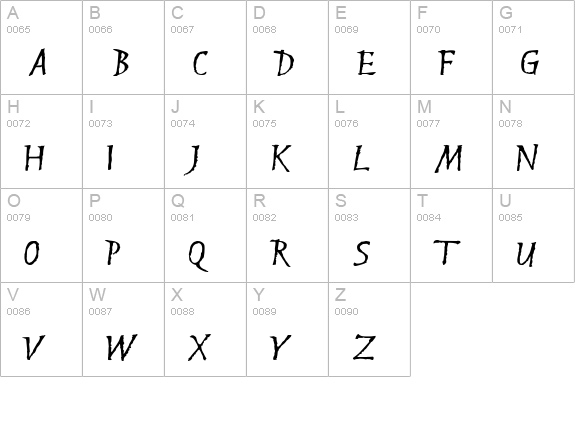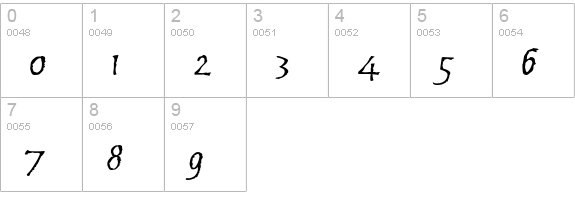
Brubeck AH font is a modern and stylish typeface that exudes sophistication and elegance. Its sleek lines and contemporary design make it a versatile choice for a wide range of design projects. With its clean and legible appearance, Brubeck AH font is perfect for both print and digital applications. What sets Brubeck AH font apart is that it is available for free download at FontsMarket.com. This means that you can easily access this high-quality font without any cost, making it a valuable addition to your font library. Whether you are creating branding materials, websites, or various other design projects, Brubeck AH font is sure to elevate your work with its unique charm and visual appeal. Don't miss out on this fantastic opportunity to enhance your designs with the elegant Brubeck AH font, now available for free at FontsMarket.com.